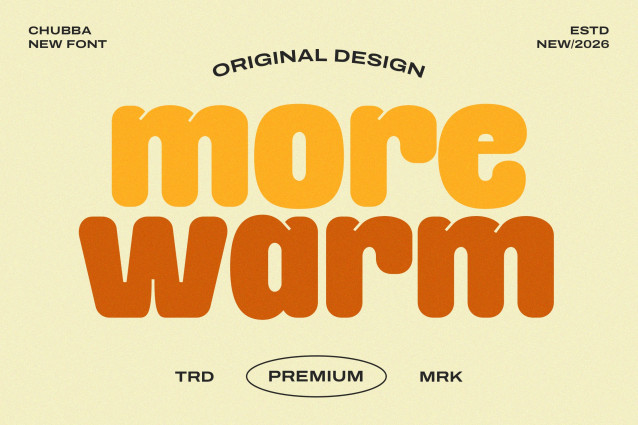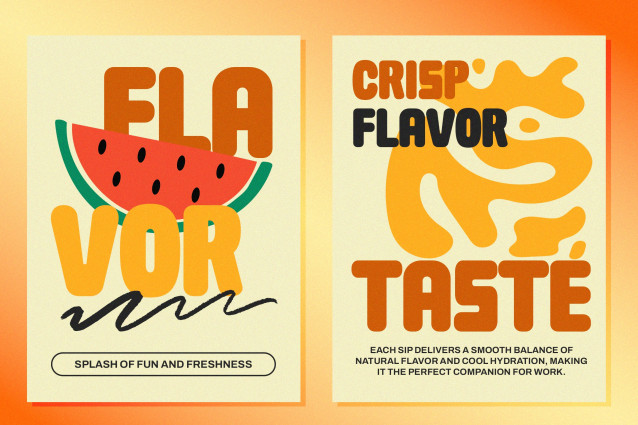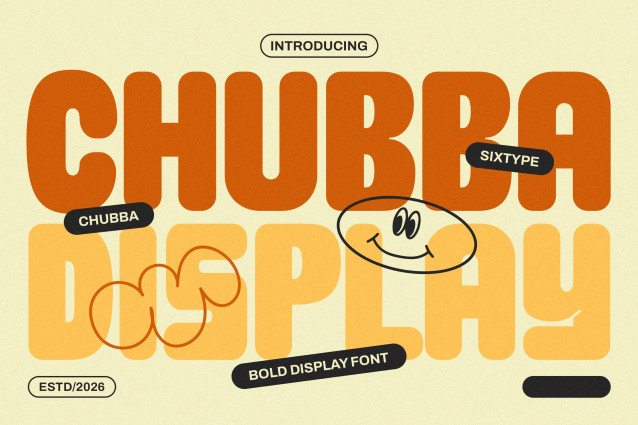
Chubba Font
Chubba Font is a bold display font built with chunky shapes, rounded corners, and a joyful personality. Designed to feel friendly, expressive, and eye-catching, Chubba brings a sense of fun and warmth to any visual composition.
Its thick strokes and soft curves make the letters feel confident yet approachable, perfect for designs that want to stand out without feeling harsh. Chubba performs best at large sizes, where its playful character and strong presence truly shine.
This font is ideal for creative projects that embrace personality, positivity, and bold visual storytelling.